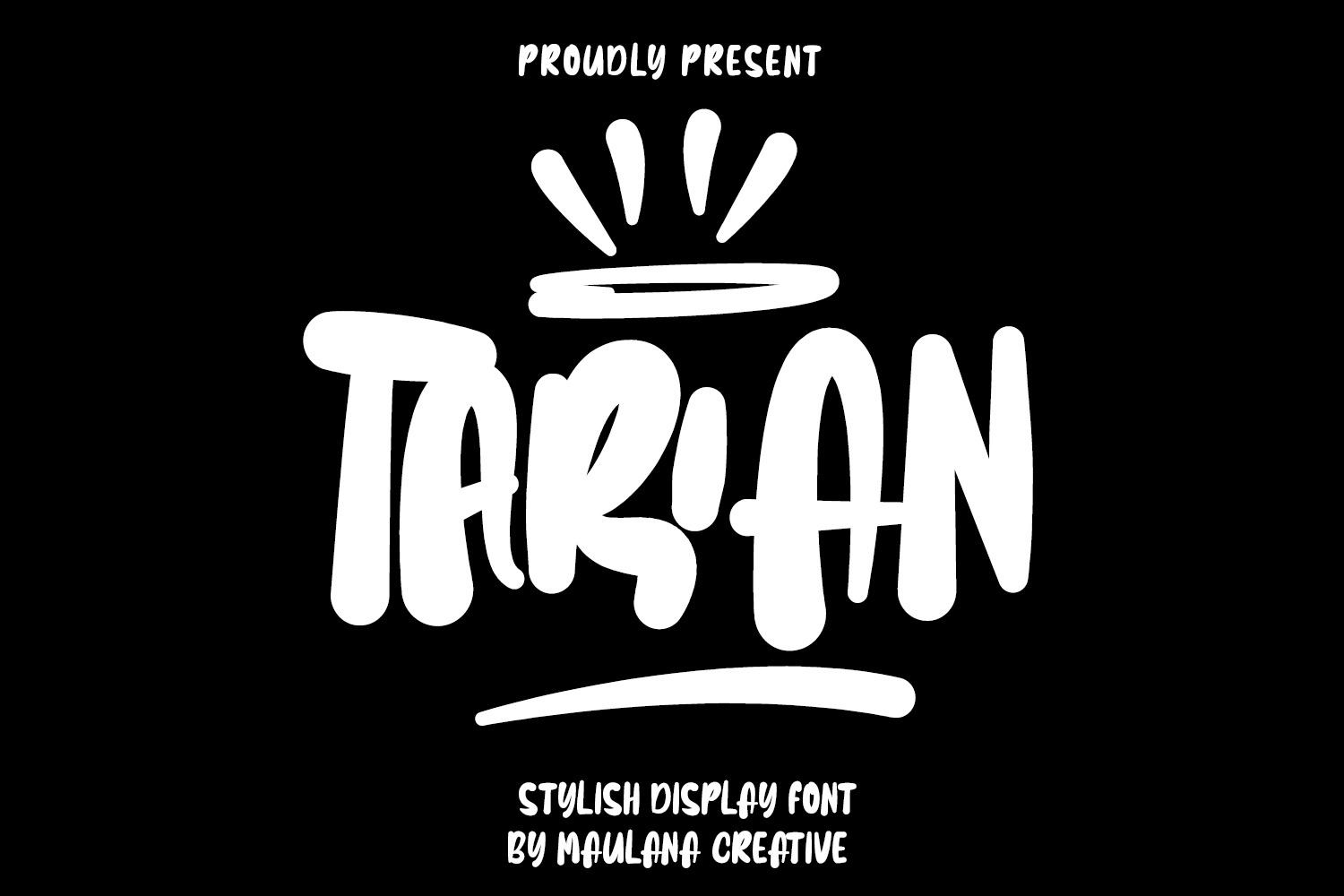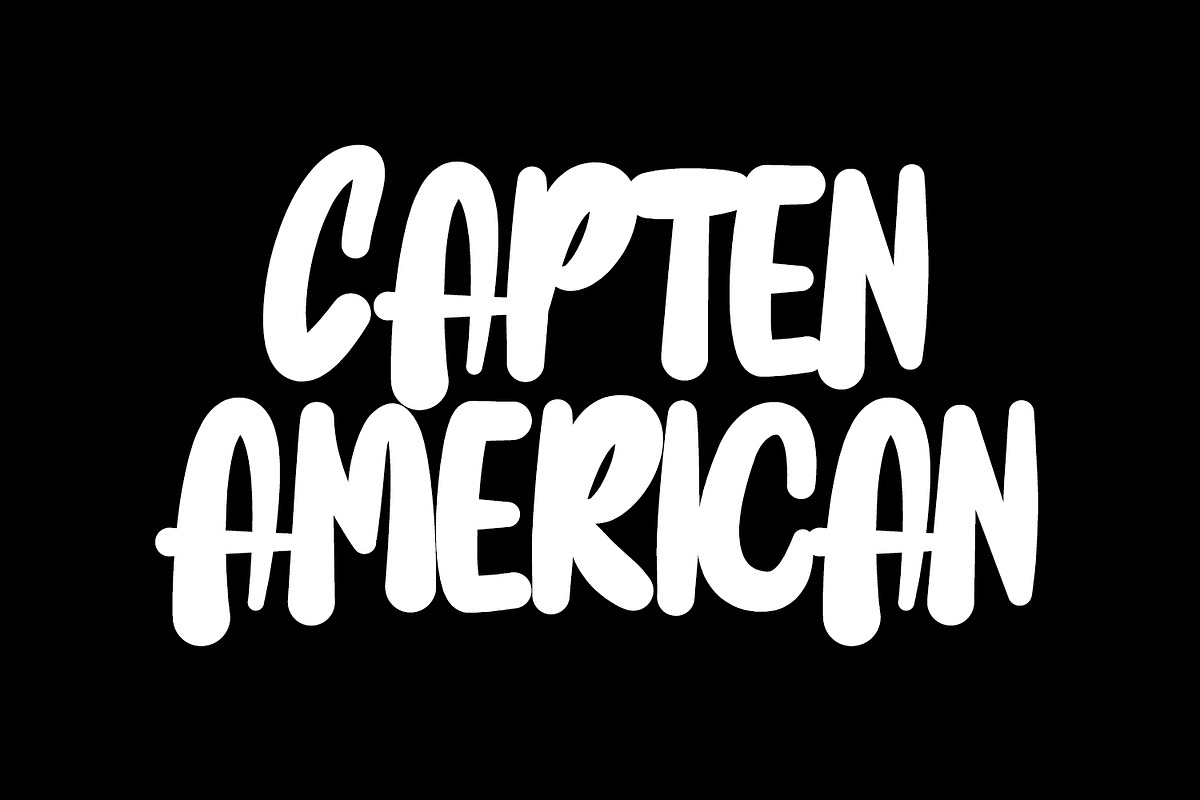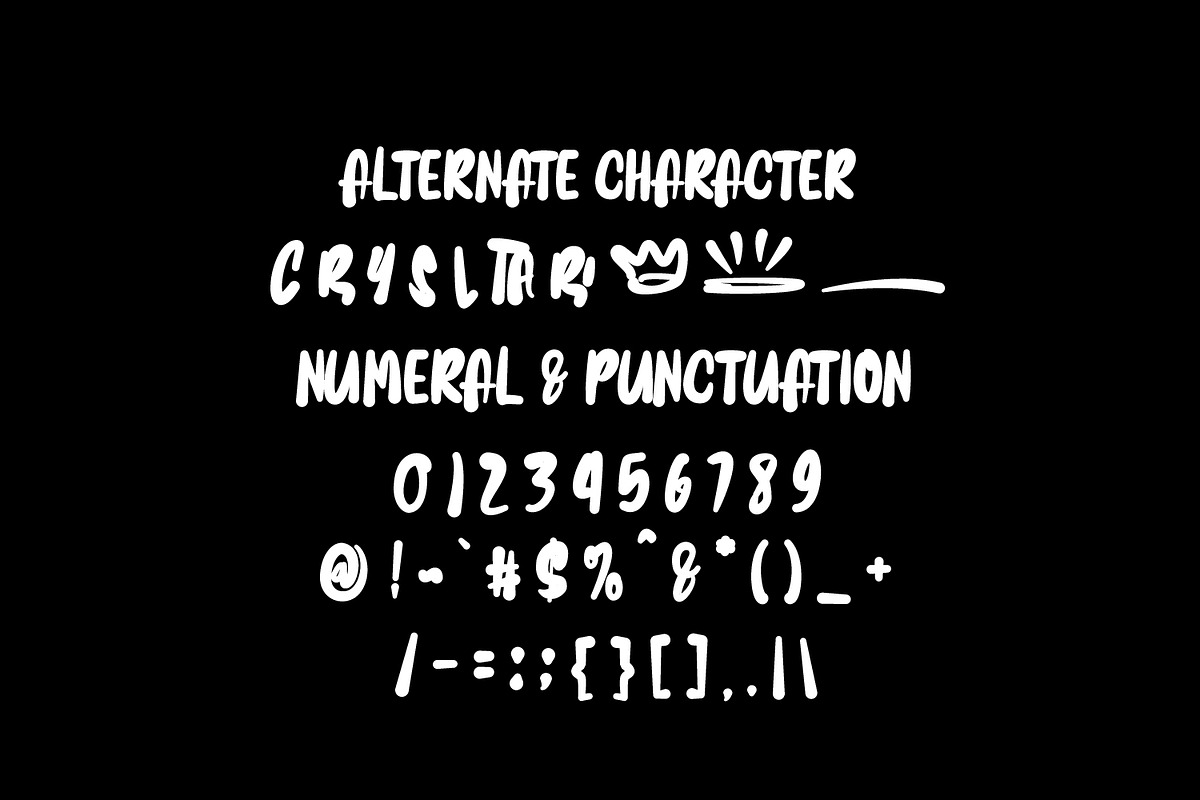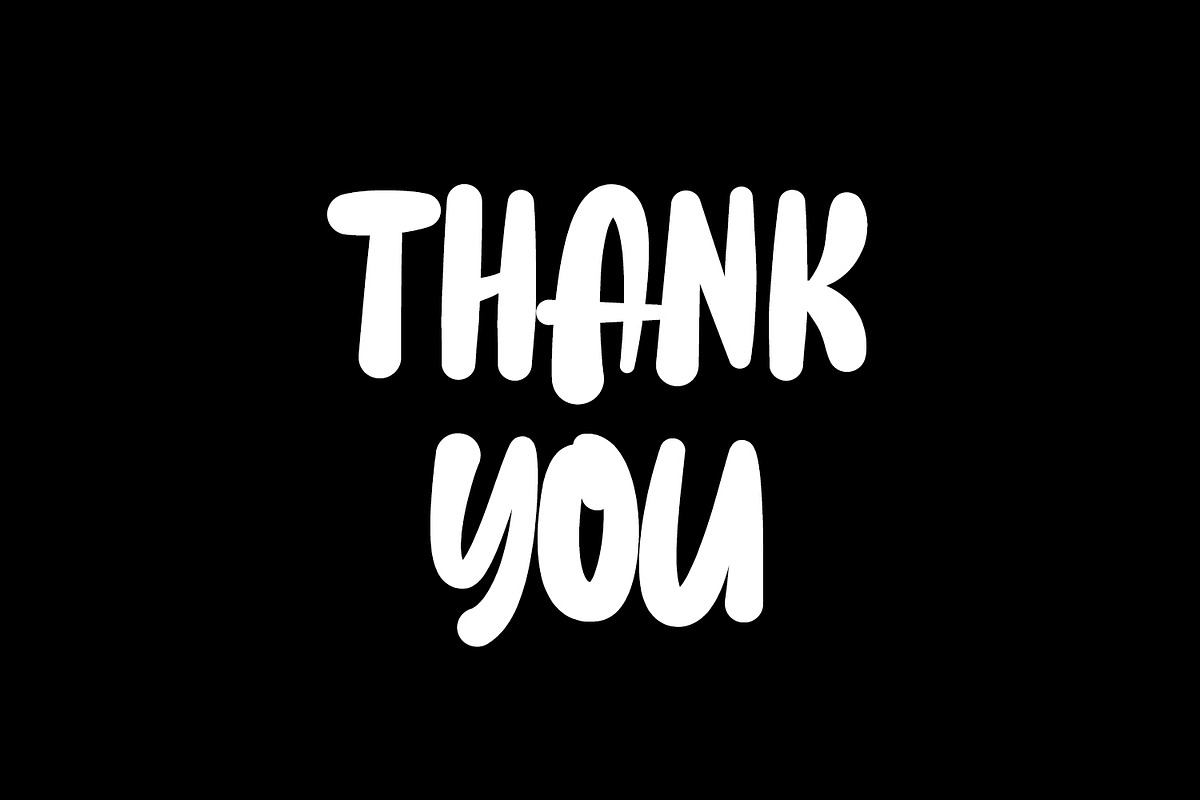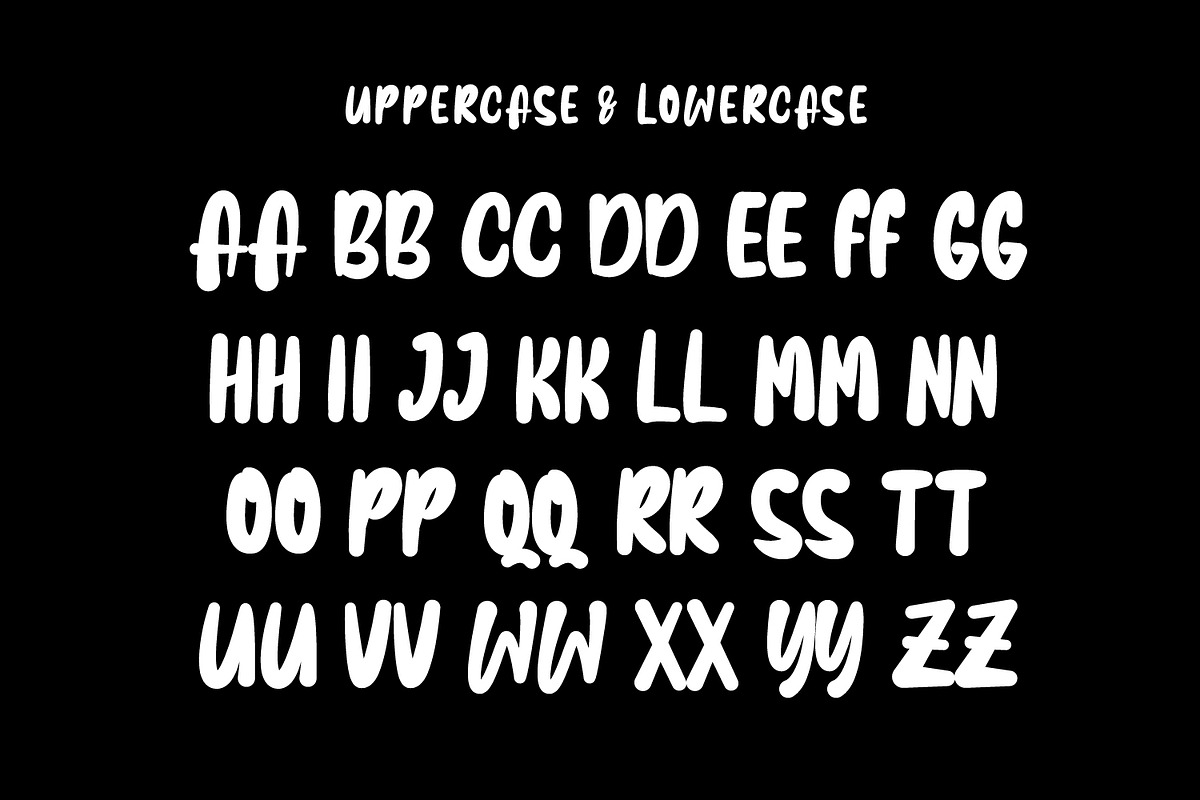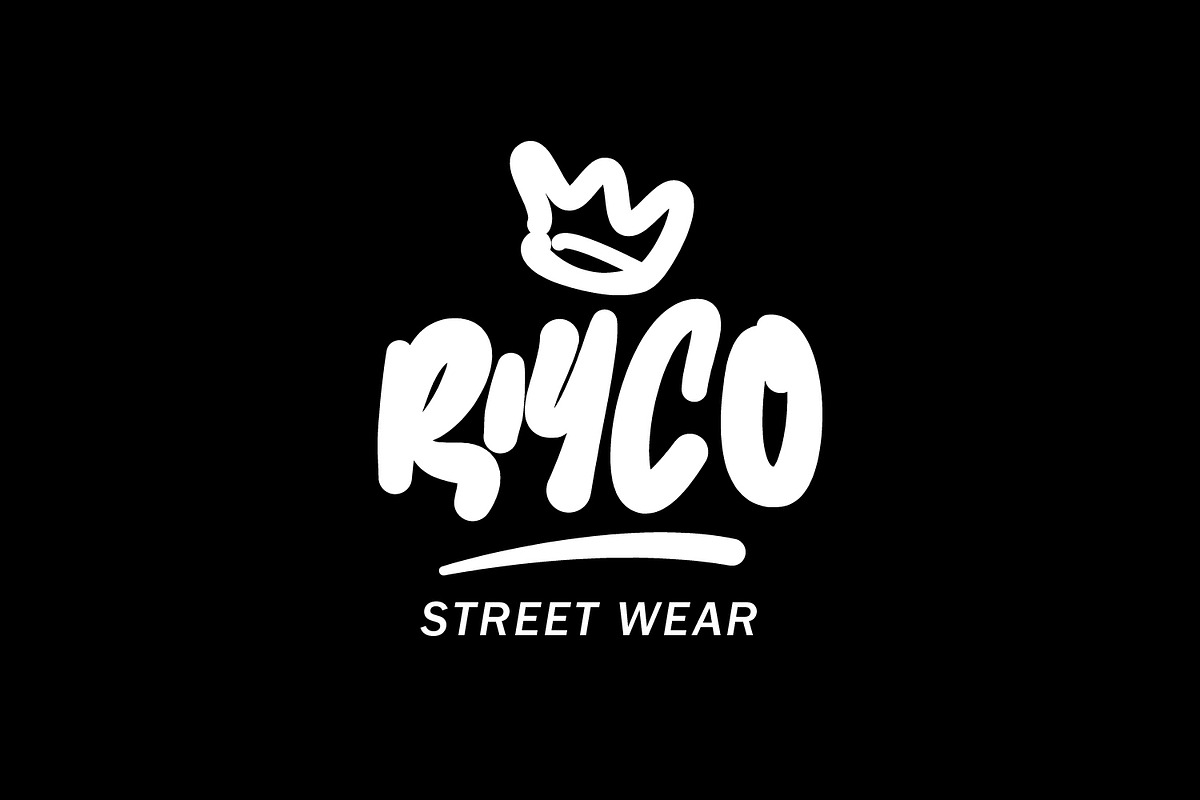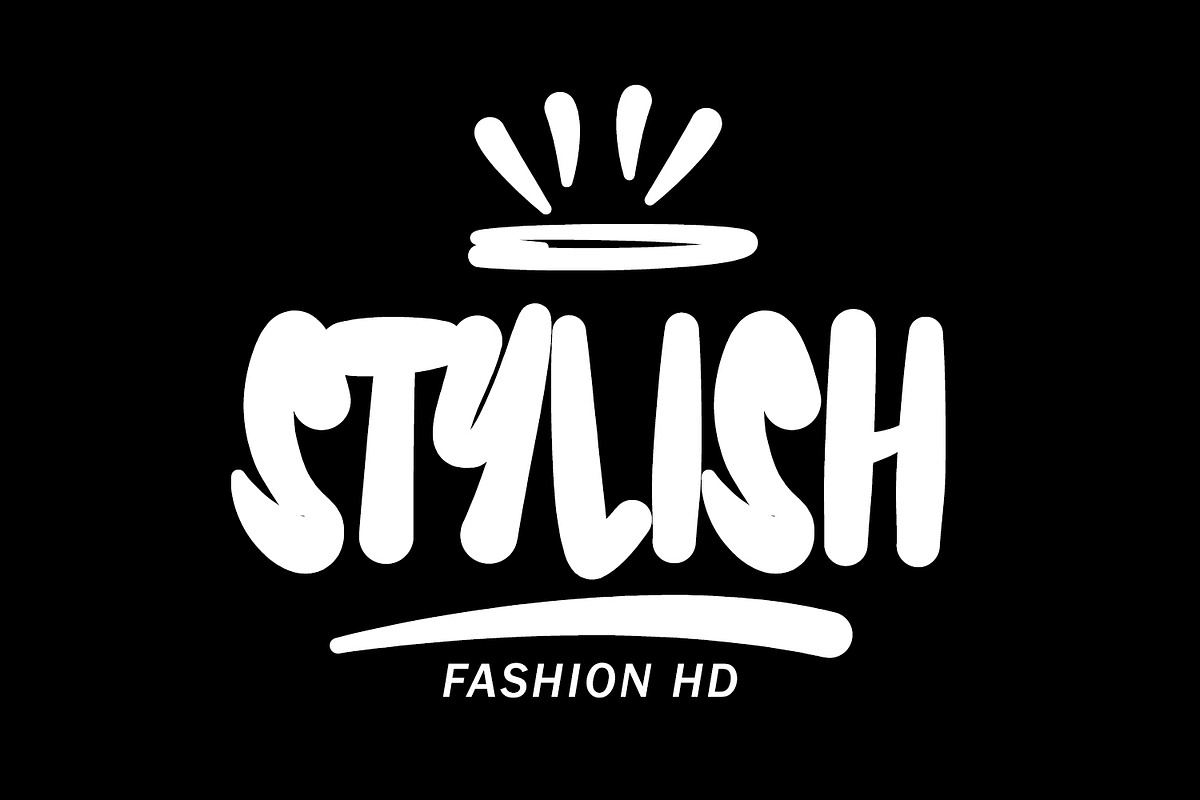
Tarian Stylish Display Font
Tarian stylish display typeface. With vintage stroke, fun character with a ligatures and alternates. To give you an extra creative work. Tarian support multilingual language. This font is good for logo design, Social media, Movie Titles, Books Titles, a short text even a long text letter and good for your secondary text font with script or serif. Make a stunning work with Tarian urban stylish display typeface.